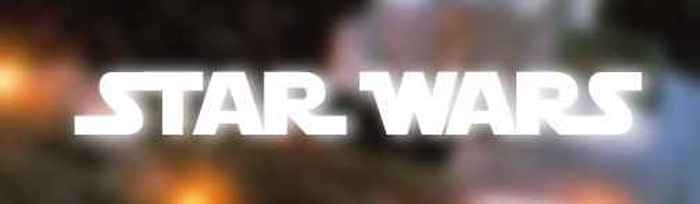
Star Jedi Font
These Star Wars Logo fonts are based upon the official Star Wars logo typeface. Star Jedi is a titling (capitals only) font, with a lot of variations and connections.
Star Jedi is a bold font that reproduces exactly the Star Wars logo's typeface. The small letters are all capitals, while the capitals are serif variants. A few simple link-lines allow you to create complex letter groups, as shown below. Besides, you'll find some dingbats reproducing the whole Star Wars logo letter group, the Imperial and the Rebellion logos, etc
Star Jedi Hollow is the contour version of Star Jedi, but, in order to mantain the capability to create letter groups and connections, it must be quite different. Due to the nature of a closed contour glyph, you can't simply apply closed link-lines or plugs on it without injuring the continuity of the contour. Contours to be linked definitely must be open. The small letters are the hollow version of the small letters in Star Jedi (all caps, sans serif) with a closed contour; the capitals have an open contour, that's totally linkable.
Star Jedi Rounded is a little variant of the main Star Jedi font, not included in the collection: the only difference is a rounded style in some letters.
Uppercase Q is messed up in the Jedi and Jedi Rounded fonts - they both create an M
This is good for title stuff
why the O is not workin? shows an N
It is annoying as hell that some of the letters show up as other letters.
@SareeBearrawr @damkay It's because you are doing uppercase. Do everything lowercase and you will be fine. Figured this out the hard way. The uppercase N and H other letters point different directions so it's actually a good thing to have these letters.
Uppercase or not, some letter are screwed up. You'd think after 5 years the author would've fixed this. 1 star
Why are these fonts made with terrible uppercase character map!? Awfull. If we want normal alphabet characters we are forced to use lowercase.
I and O are not correct